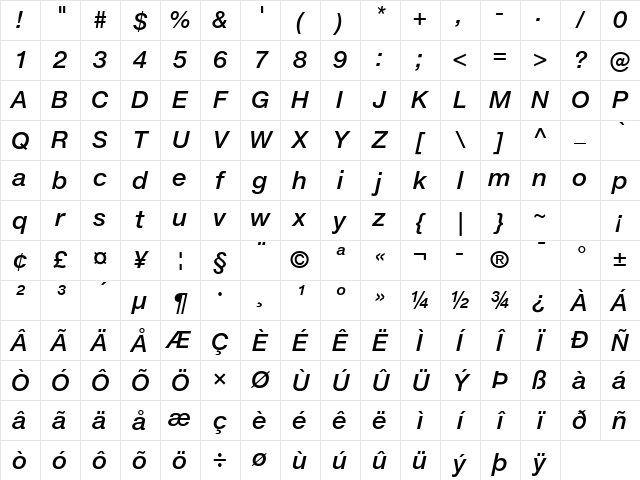
Complete Helvetica Neue ET Pro 66 Medium Italic glyph index. Displaying only characters natively supported by Helvetica Neue ET Pro 66 Medium Italic font.
Helvetica Neue ET Pro is a composed and adaptable typeface that performs quietly and consistently across a wide range of design contexts. The slanted form adds forward momentum and visual energy.
Pro Tip: Use Helvetica Neue ET Pro for emphasis, pull quotes, and subheadings where its slanted energy can add rhythm to the layout.